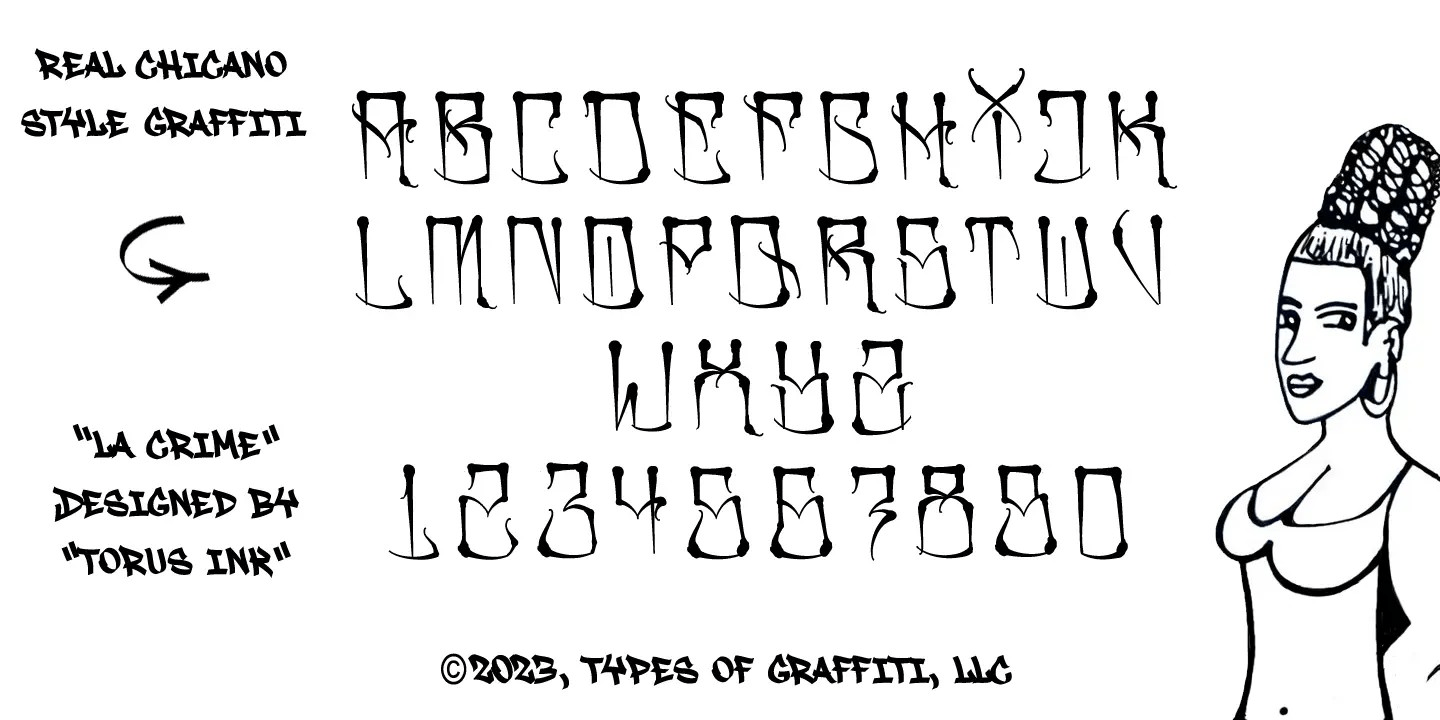
About LA Crime®
Bring raw attitude into your project with "LA Crime" fonts. Inspired by the Latin culture of the West Coast, "LA Crime" infuses your designs with authenticity of the streets, allowing you to create visuals that resonate with the soul of the barrio.
Designed by: Torus Ink